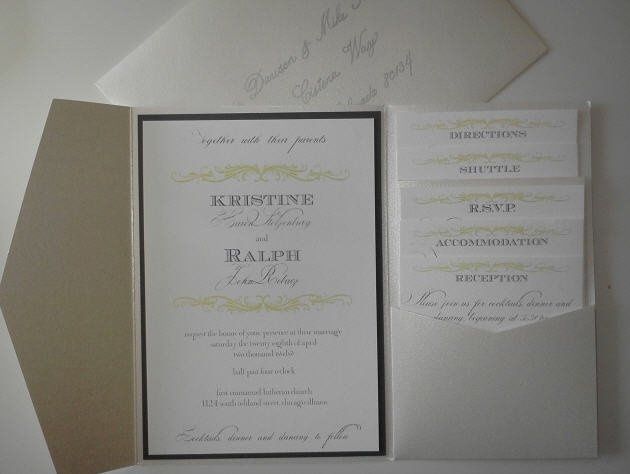
Wedding Invitation Font
I'm having a very difficult time finding the right font for the wedding invitations. We want something masculine but not so boring that it looks sterile.
Suggestions?
It may take some searching to find a good one, but DaFont.com has a ton of free downloadable fonts.
I briefly looked through MS Word and I liked Trajan Pro -- it's pretty basic but is in all caps. It may be good for the details or as a supplementary font.
If you're ordering your invitations from a stationer, ask what s/he has available that would be suitable.
So, I've got to pic out a font and either have them printed or print them myself.
Fonts are tough. I used Bodoni MT Condensed for mine. I think it looks classy and clean, and it also probably looks a little masculine. I used the brides invitation kit and printed my own, as well! Good luck and congrats!
I had a field day downloading fonts. These might work for you:
Bird Cherry
Riesling
Dasseldorf (we used this one for our invites w/ Scriptina. Scriptina is super loopy)
On DaFont check to make sure your punctuation works. some of the fonts don't have things like ':.; & etc. and you u end up with boxes or they turn to courier fonts.
Also if you are making your invite using illustrator or photoshop make sure when you are done you flatten it, or select all convert type to outlines. (but only after you need no more editing) Some fonts will not let you print them however if flattened into the pic are tricked into becomming photos, or drawings instead of fonts Smiley smile good luck,
finding fonts is frustrating but fun.
You could also try looking for graphic design forums, or looking for a student who is designing for class.
Here's our invite - I wasn't going for masculine but I didn't want anything too flowery either. We used:
Gregoire
Ecuyer
Indenture English Penman - kind of a PITA as some things had to be resized but it was worth it - might be too flowery for you? IDK.
I basically just saw a similar combination in an ad from a very schmancy stationer in a Martha Stewart magazine and then we sort of copied it. Shh. Smiley smile
We did Edwardian script for our names and Garamond for the rest. It was very classy looking.